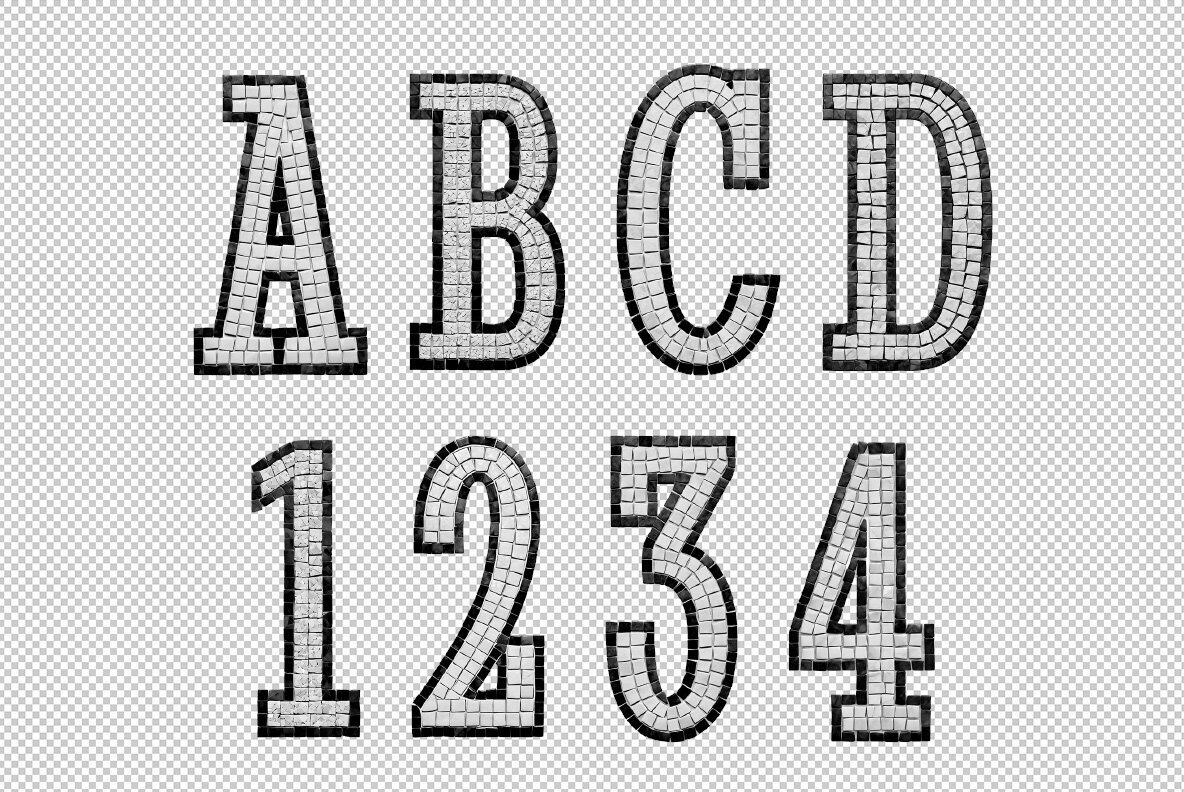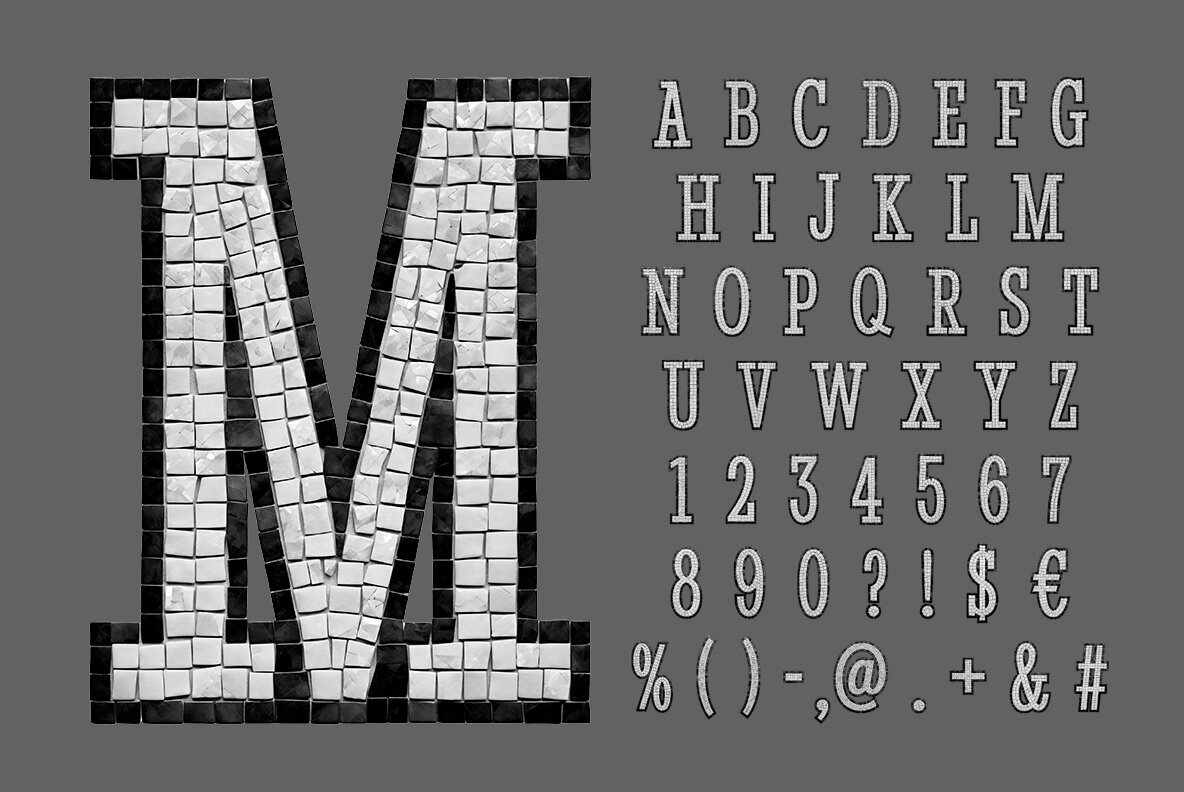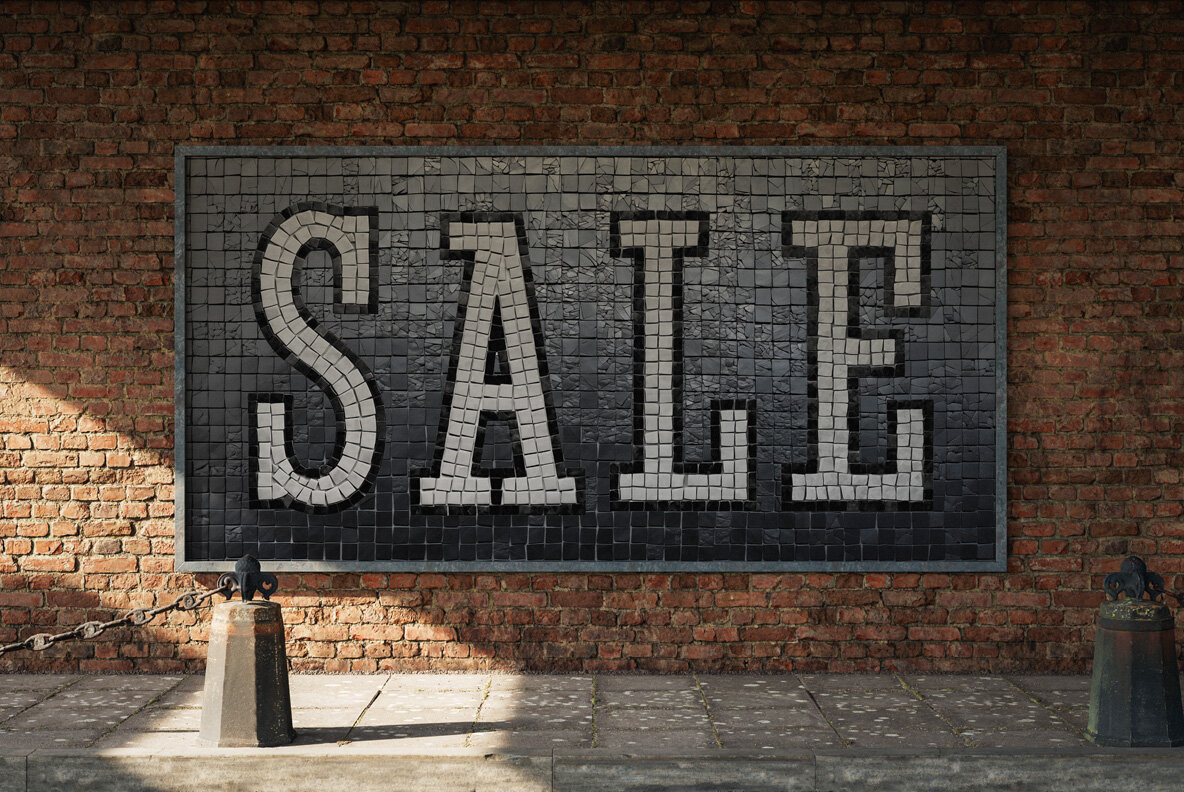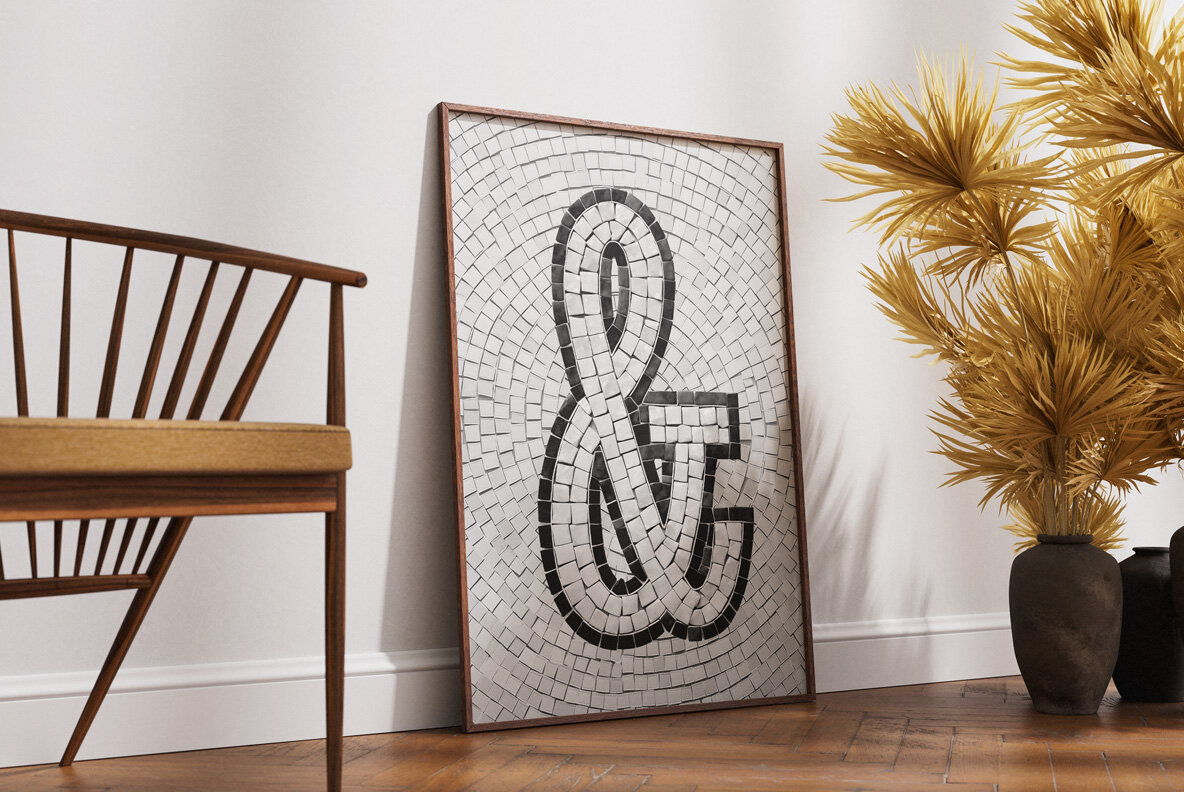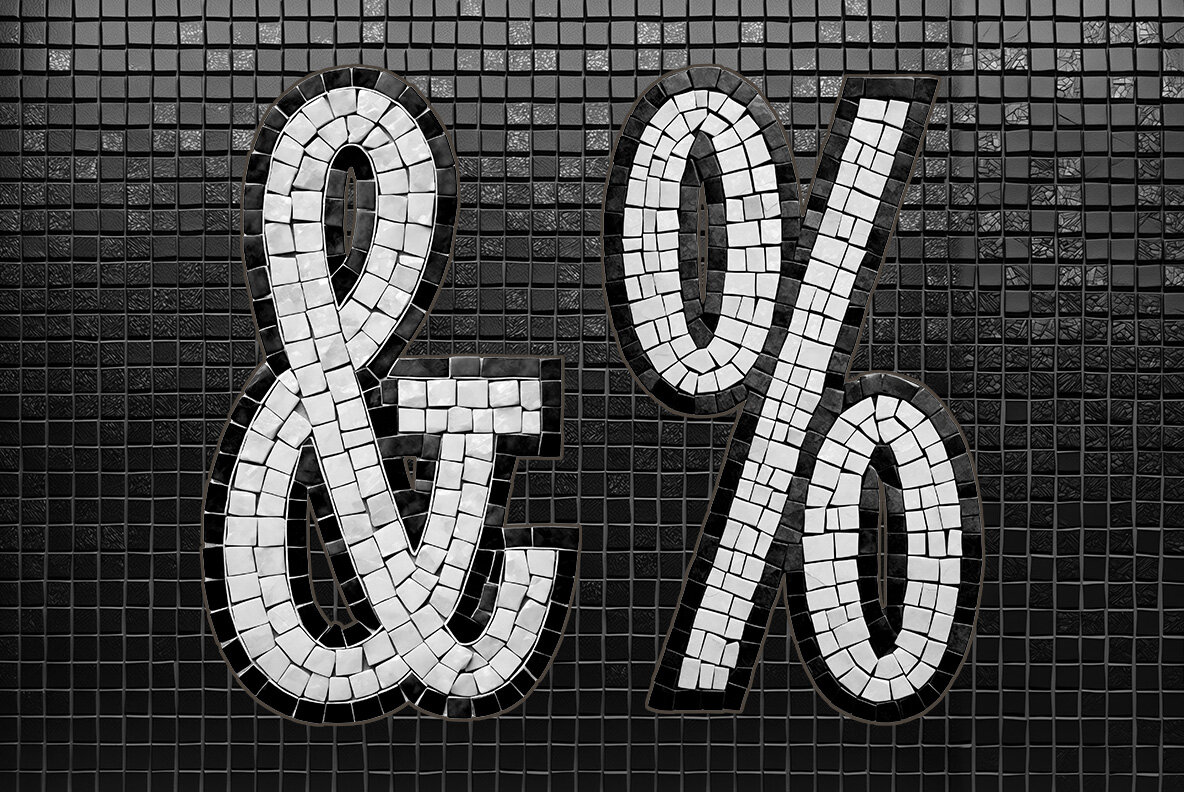
Mosaic BW SVG is a uniquely crafted font that transforms the alphabet into an elegant display of black and white mosaic stones. Each letter boasts intricate patterns, seamlessly merging the enduring appeal of mosaic artistry with a contemporary design flair. Ideal for projects that demand a sophisticated and textured aesthetic, this font brings the timeless beauty of stonework into the modern digital realm. Whether you're designing posters, logos, or other digital creations, Mosaic BW Font delivers a remarkable, handcrafted presence to your work.
Featuring 52 individual files, the set includes letters A to Z, numbers 0 to 9, and special symbols like !, ?, -, ., ', $, €, %, &, and . While the OpenType-SVG font format may not include extended punctuation and language support, each character's PNG file allows for manual inclusion in your projects. Embrace the artistic flair of Mosaic BW Font and let your designs stand out with its exquisite craftsmanship and modern touch.